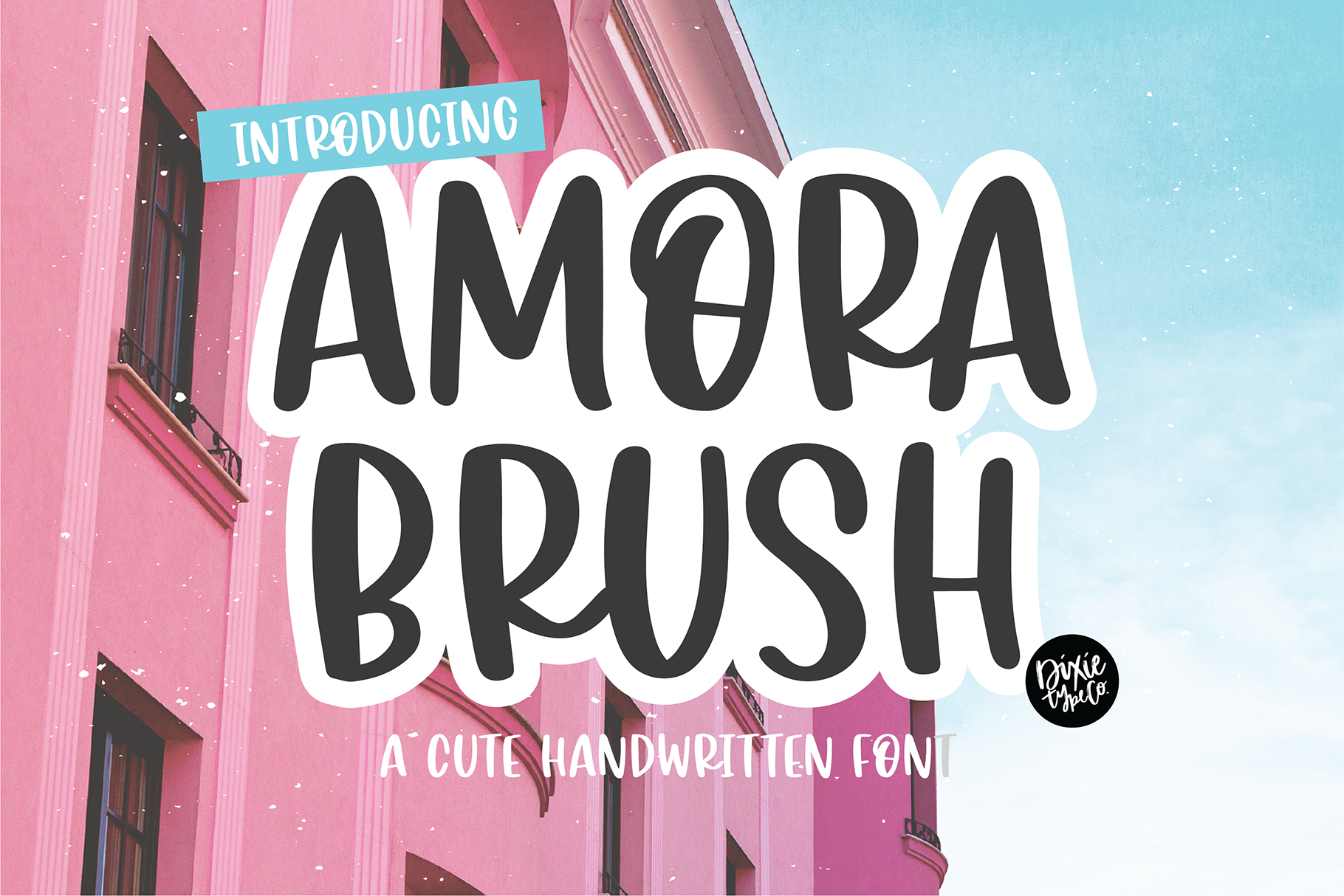
AMORA BRUSH Handwritten Font
"Amora Brush" hand lettered installable font. { A typographic font hand lettered with love by Dixie Type Co. }
Amora Brush is bold brushed lettered font. This works great as both display or filler text. Use it for home decor, party invitations, logos, etc.! This is the perfect sans font to have on hand.